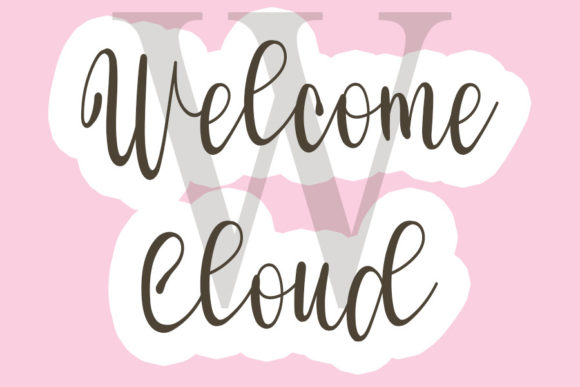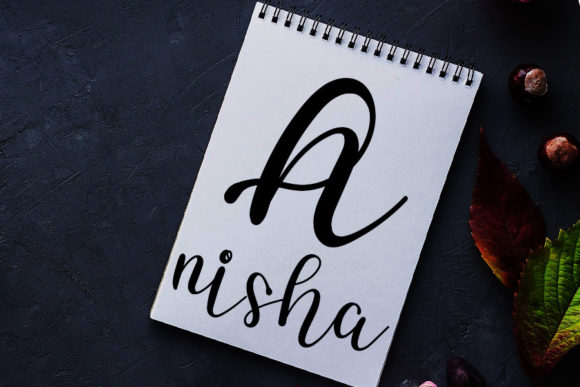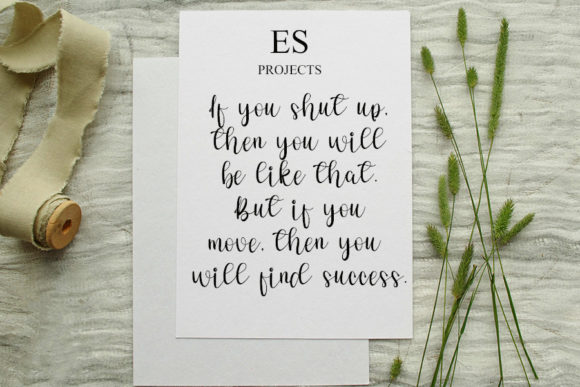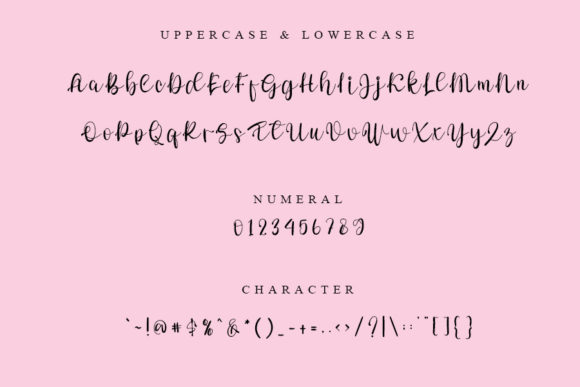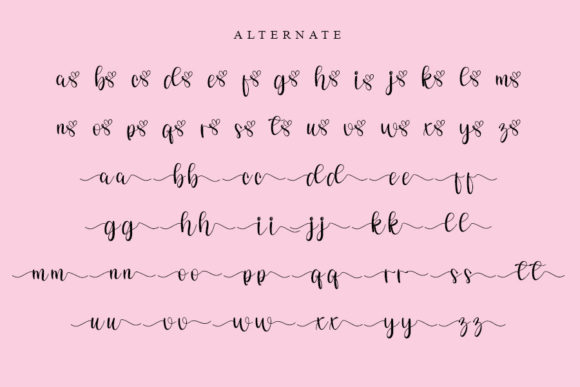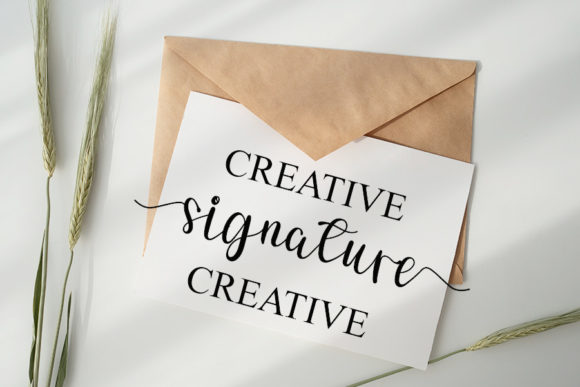
Welcome Font
About Welcome Font
Welcome is a gorgeous and elegant handwritten font. Use it for any design projects that require a charming appearance!